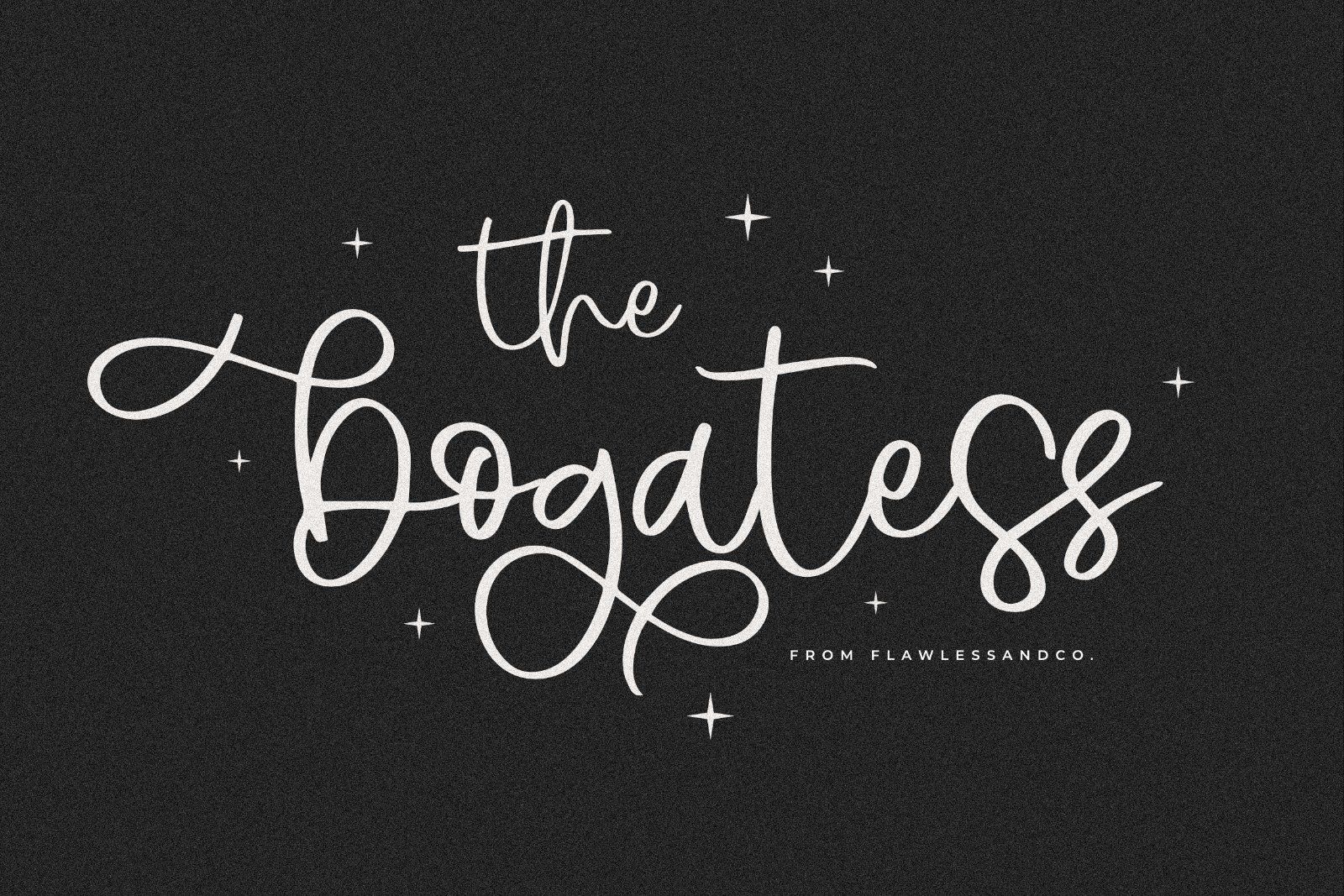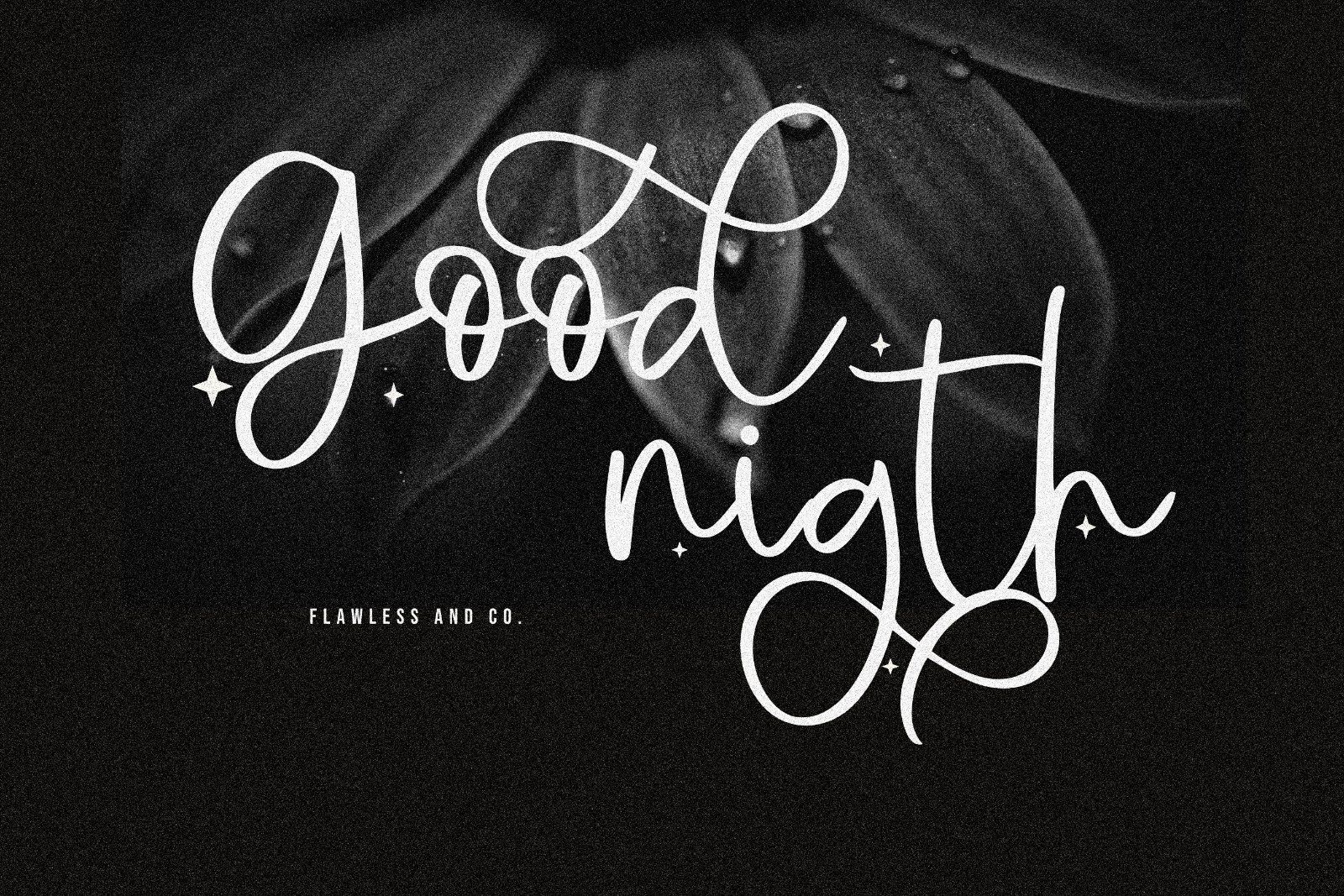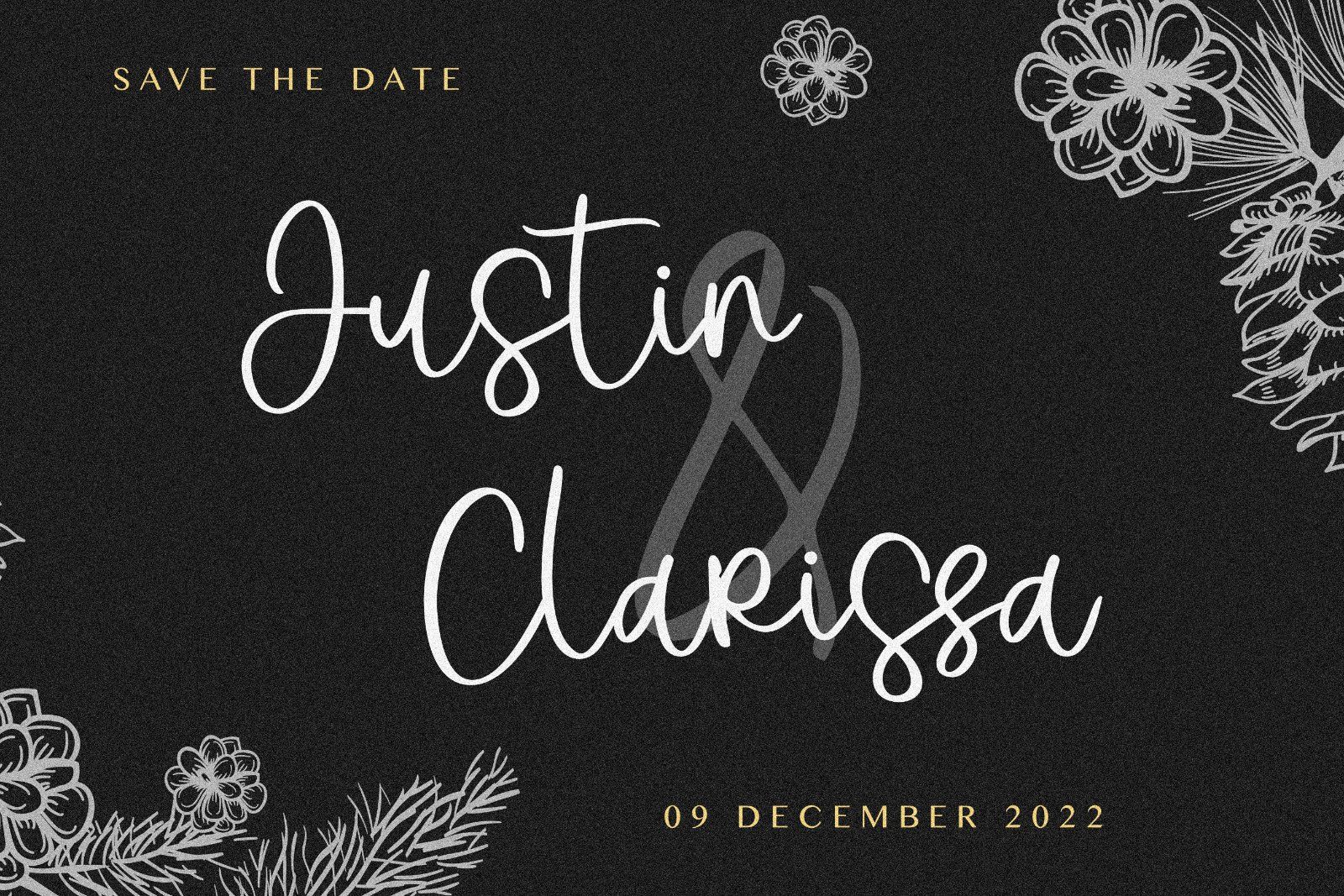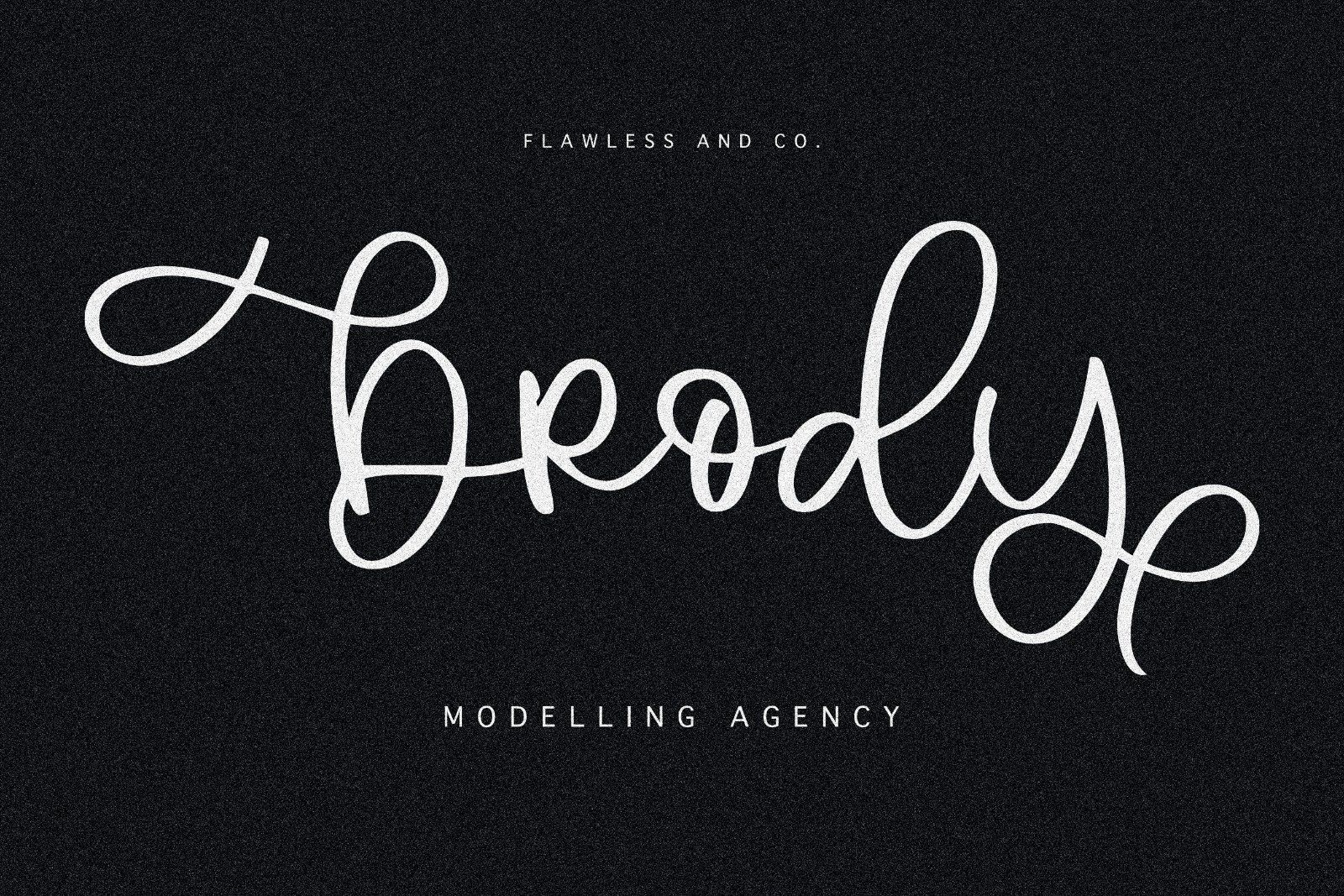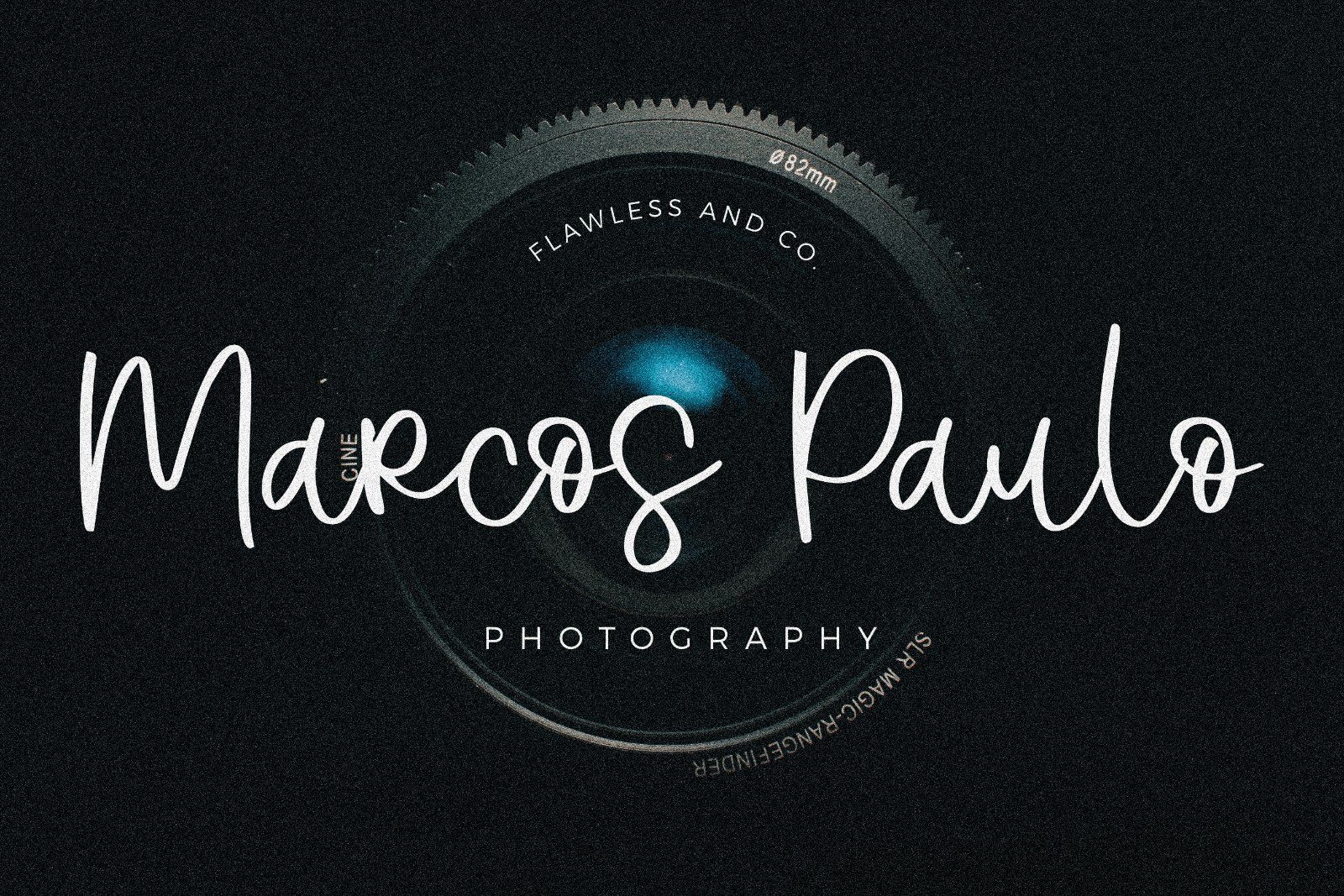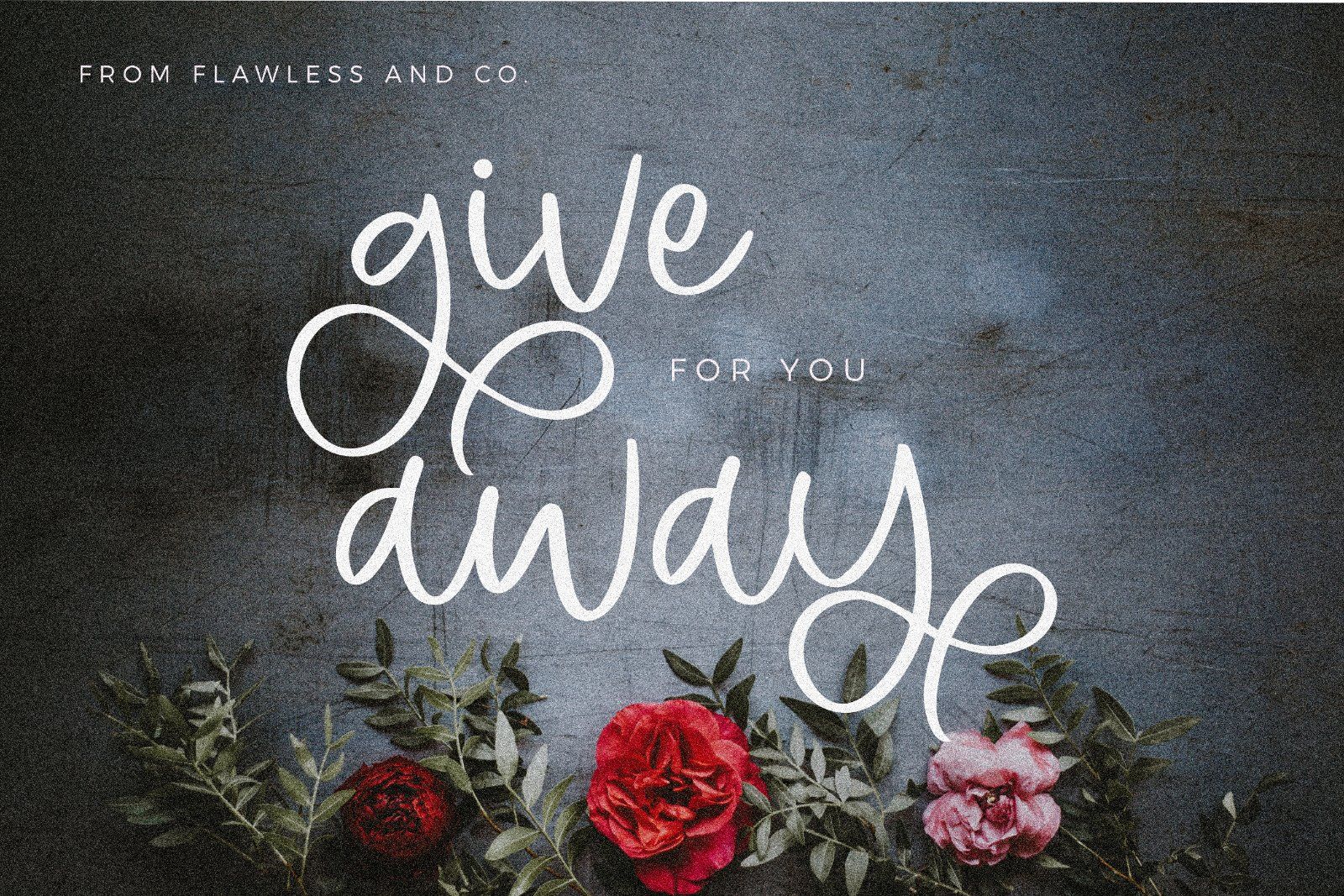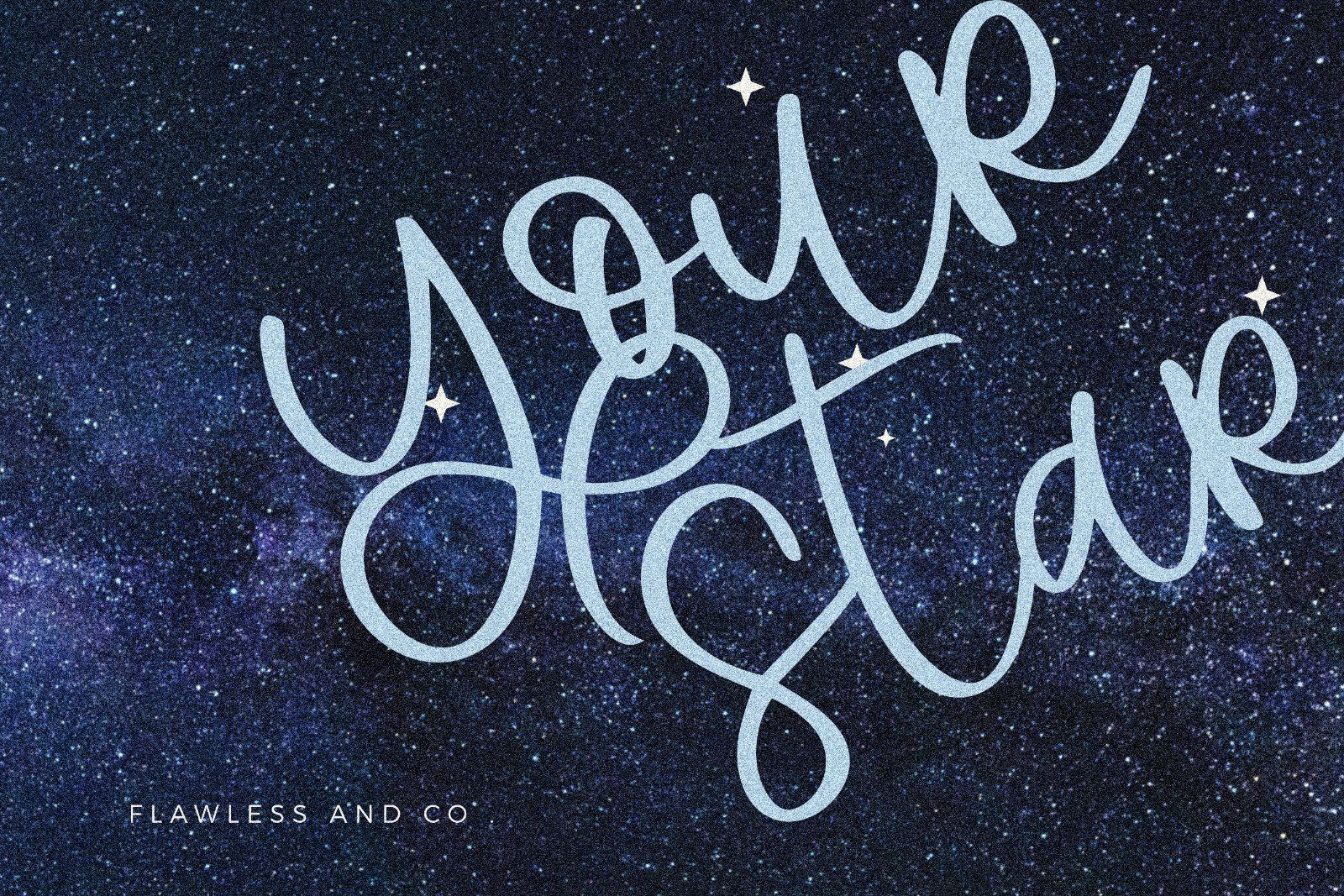
Bogatess is a beautiful script font that combines graceful handwritten strokes with a sophisticated and expressive personality. Featuring smooth flowing curves, delicate connections, and beautiful extended swashes, Bogatess creates a refined yet artistic look that brings a personal touch to every design. Its stylish letterforms are perfect for creating romantic, luxurious, and eye-catching typography while maintaining a natural handwritten feel. Whether you’re designing a logo, wedding invitation, fashion identity, or elegant social media graphic, Bogatess adds a beautiful touch of charm and sophistication.
• Uppercase alphabet A-Z
• Lowercase alphabet a-z
• Alternate Character
• Numbers 0-9
• Some punctuation